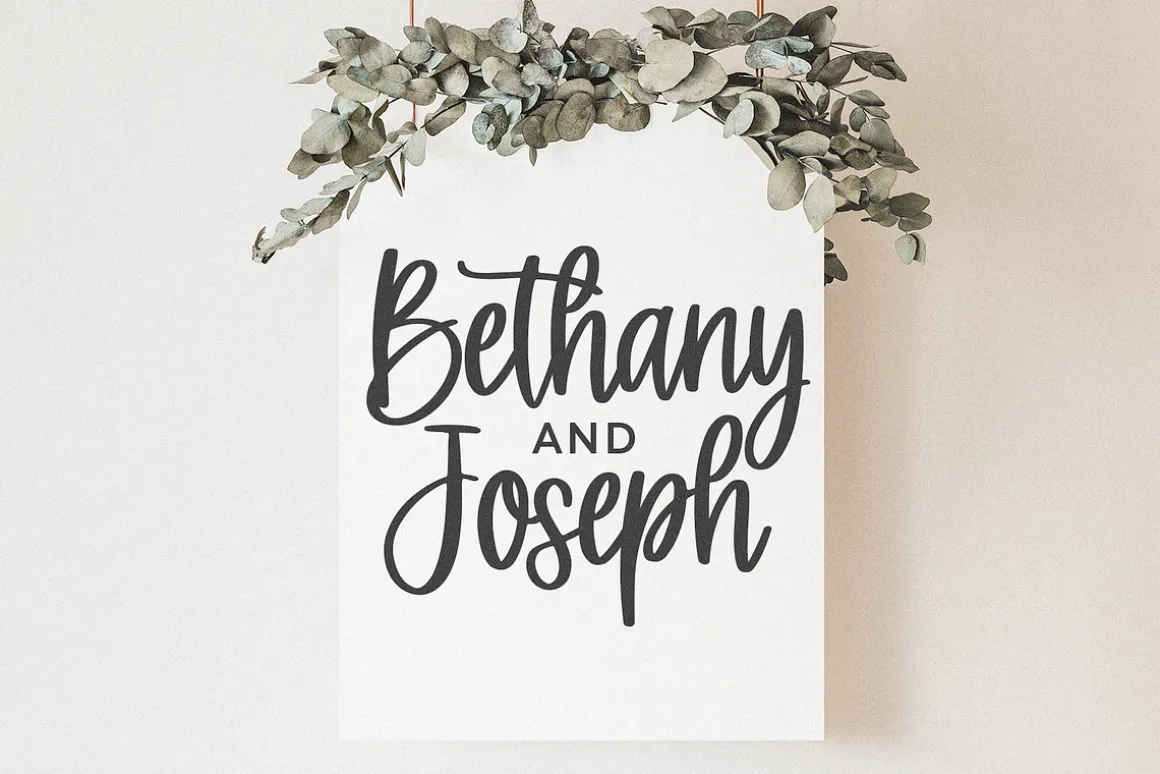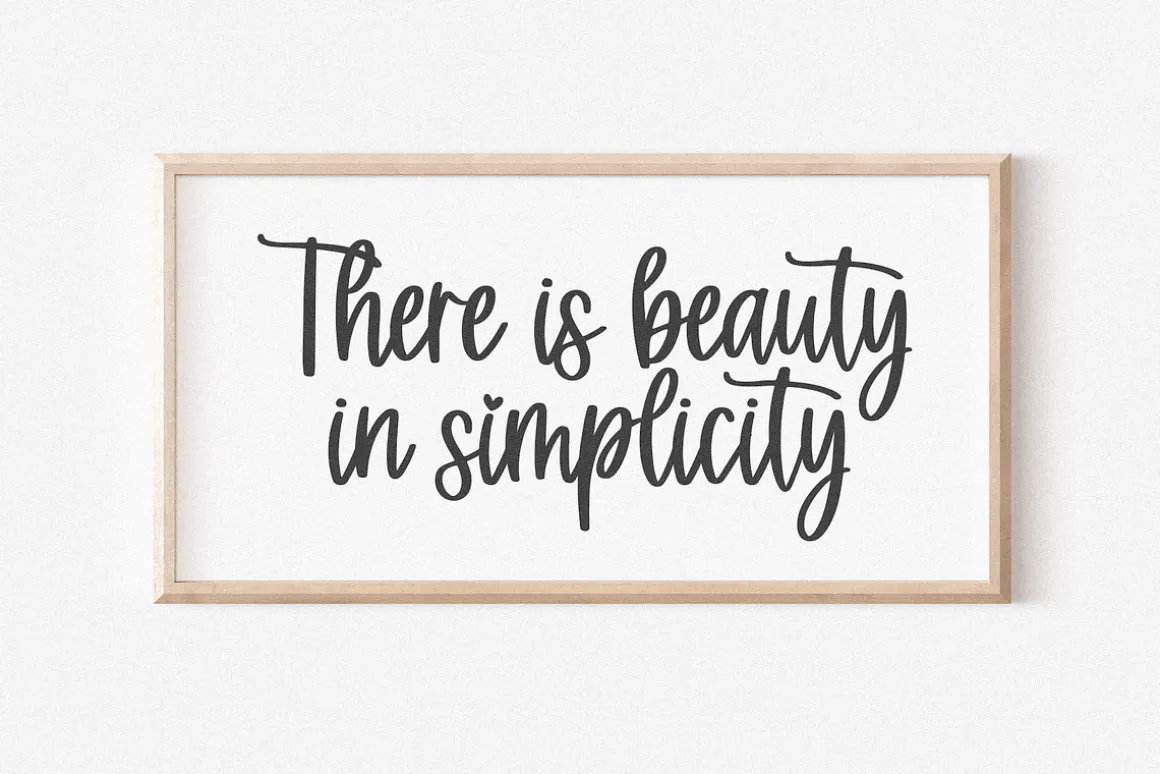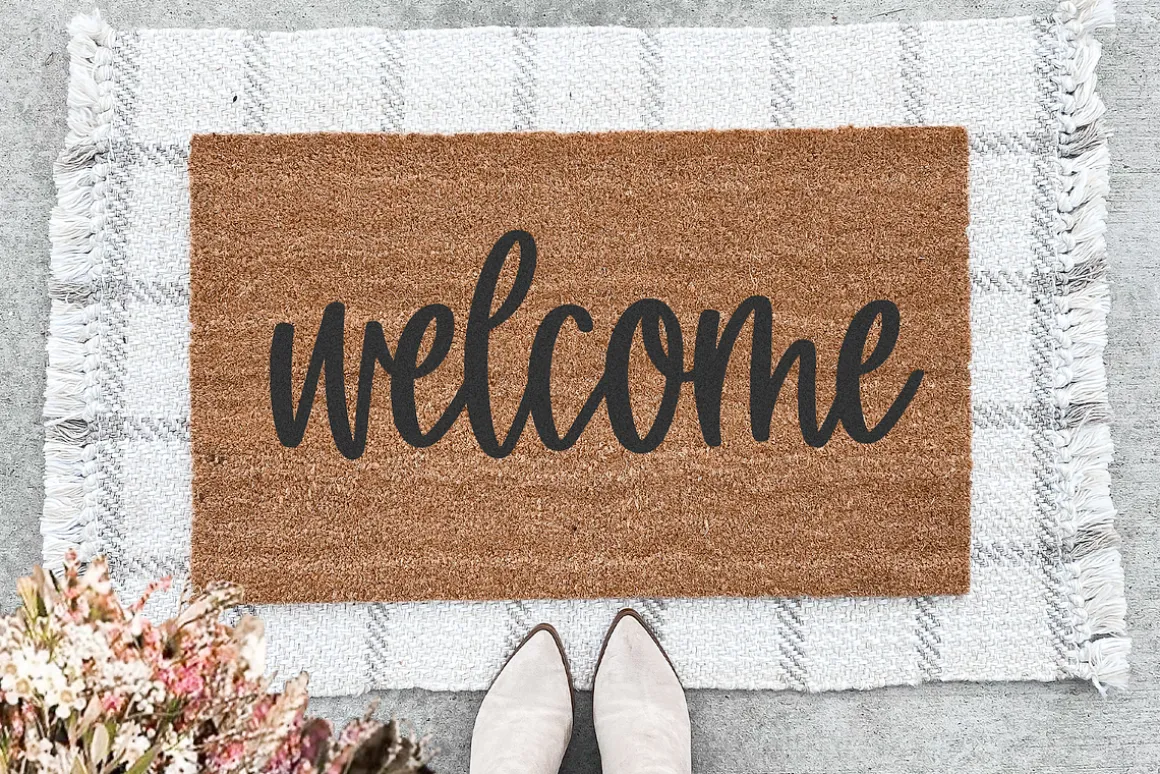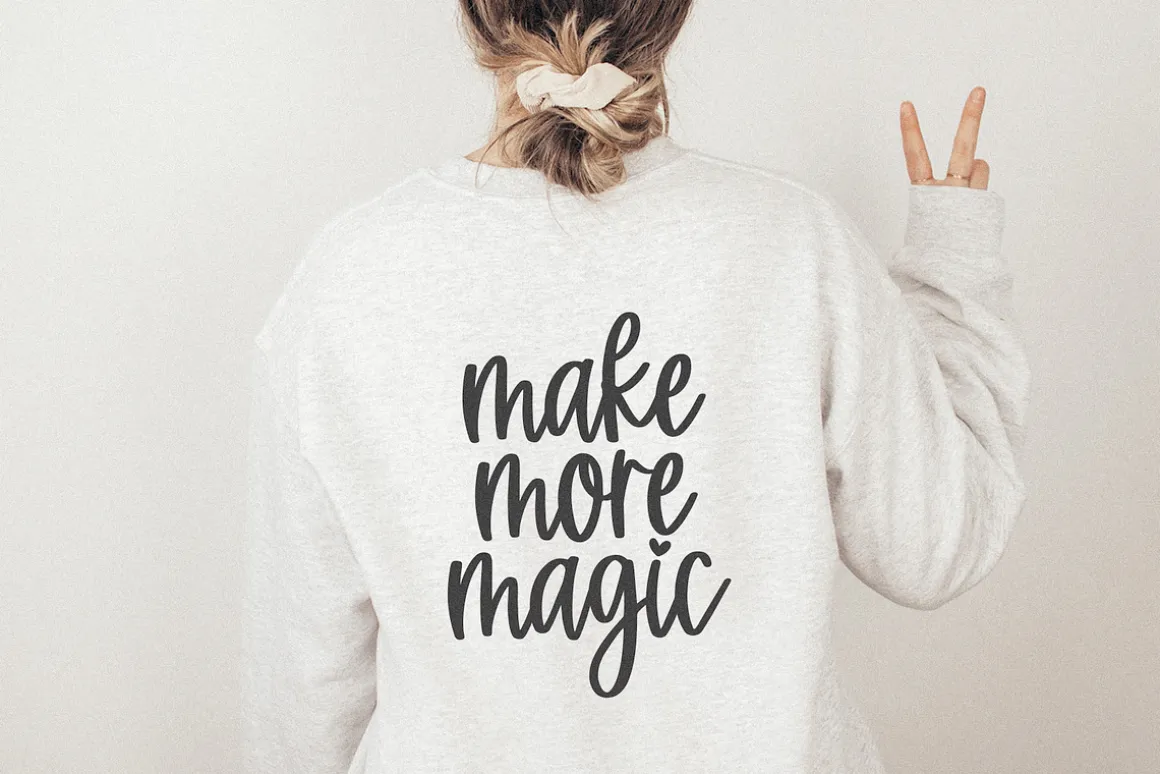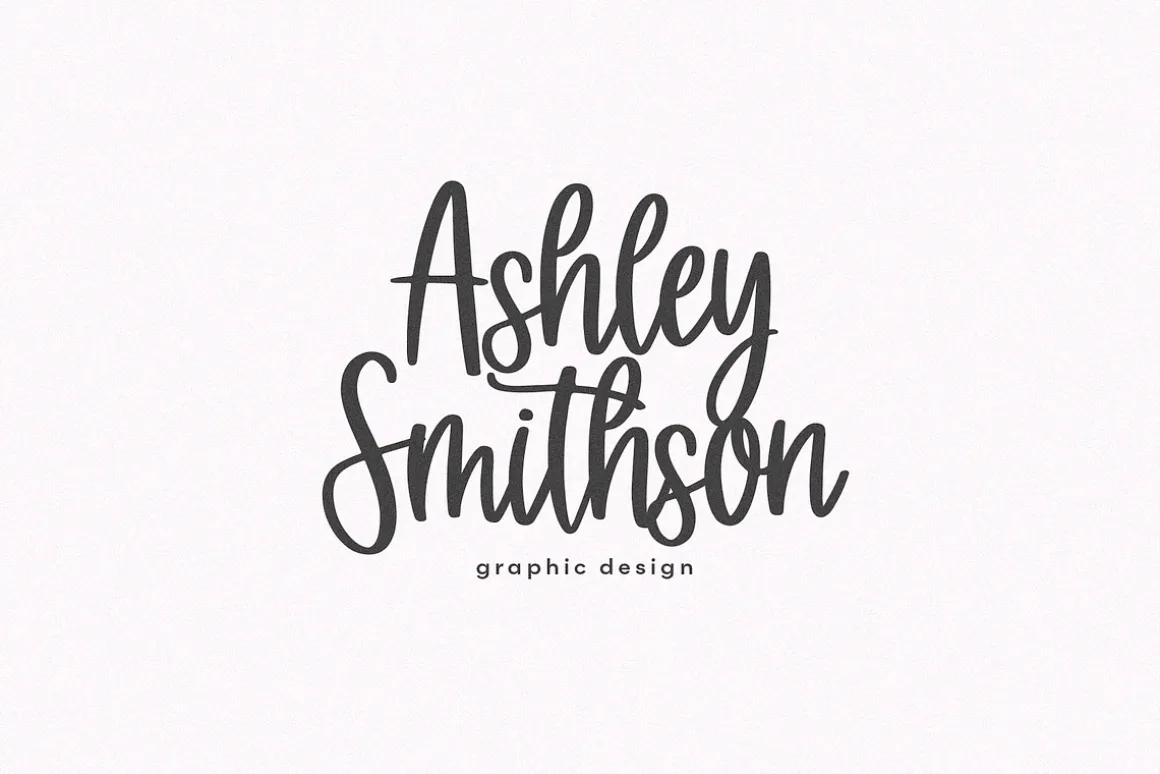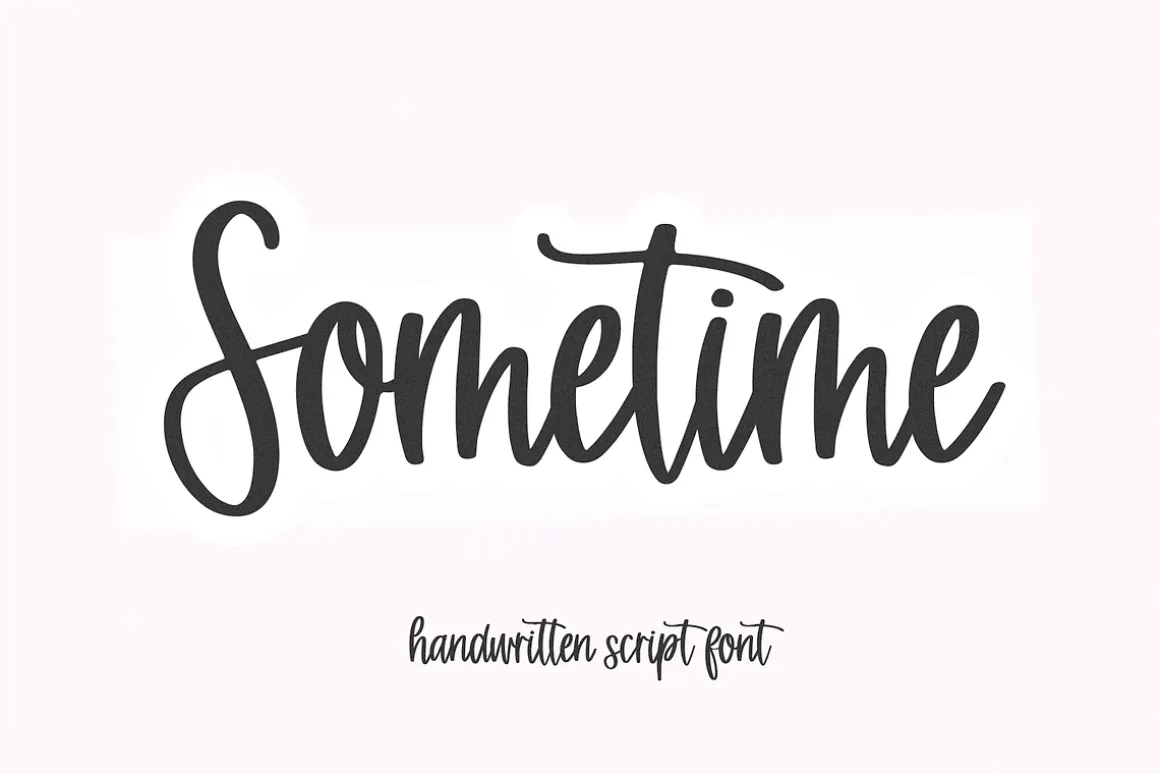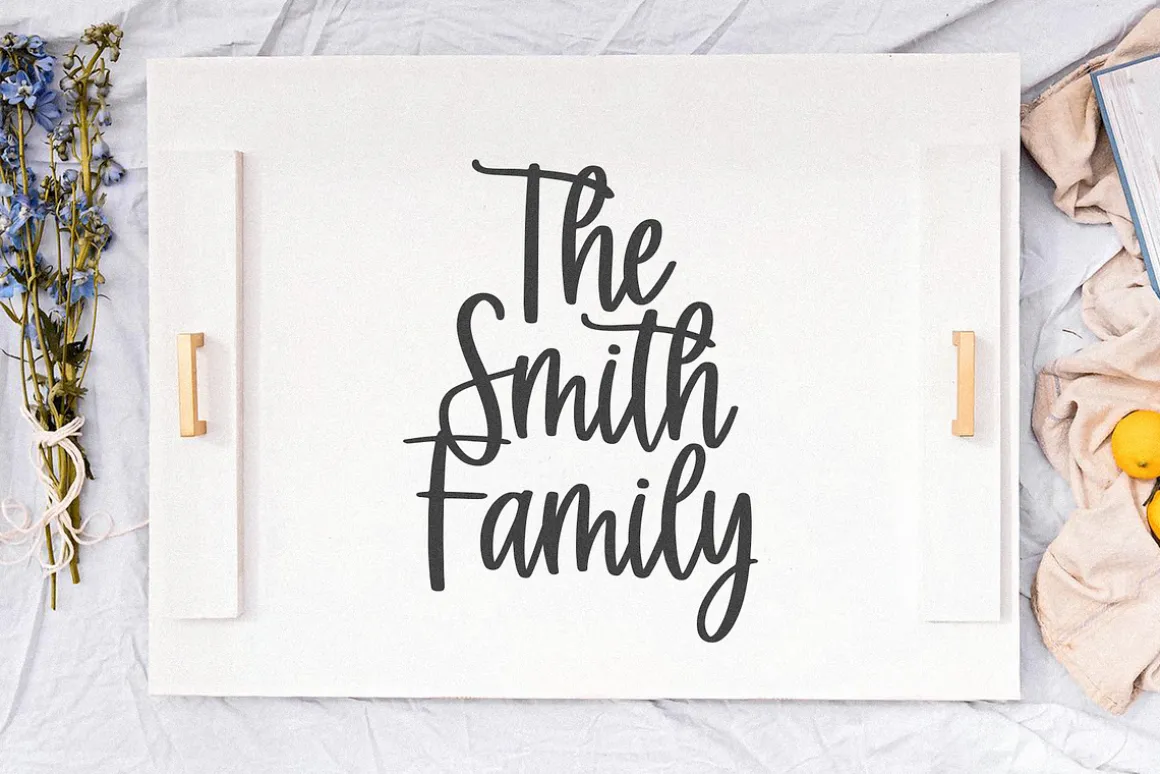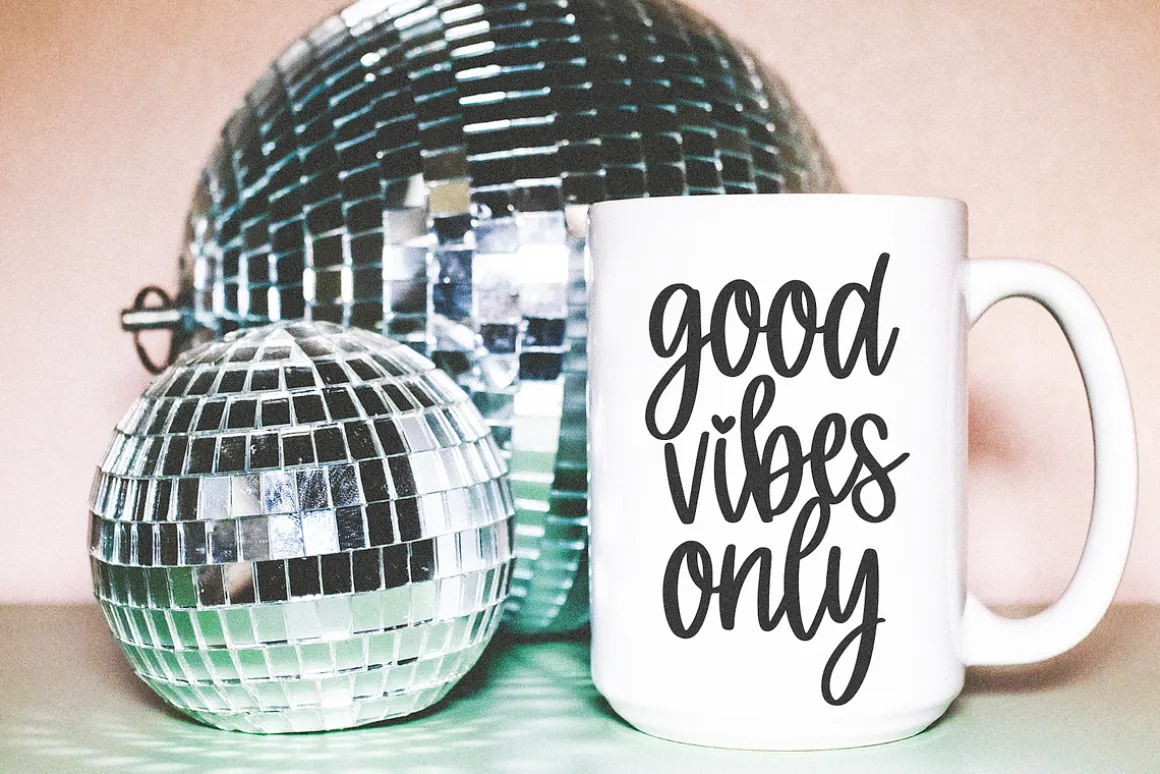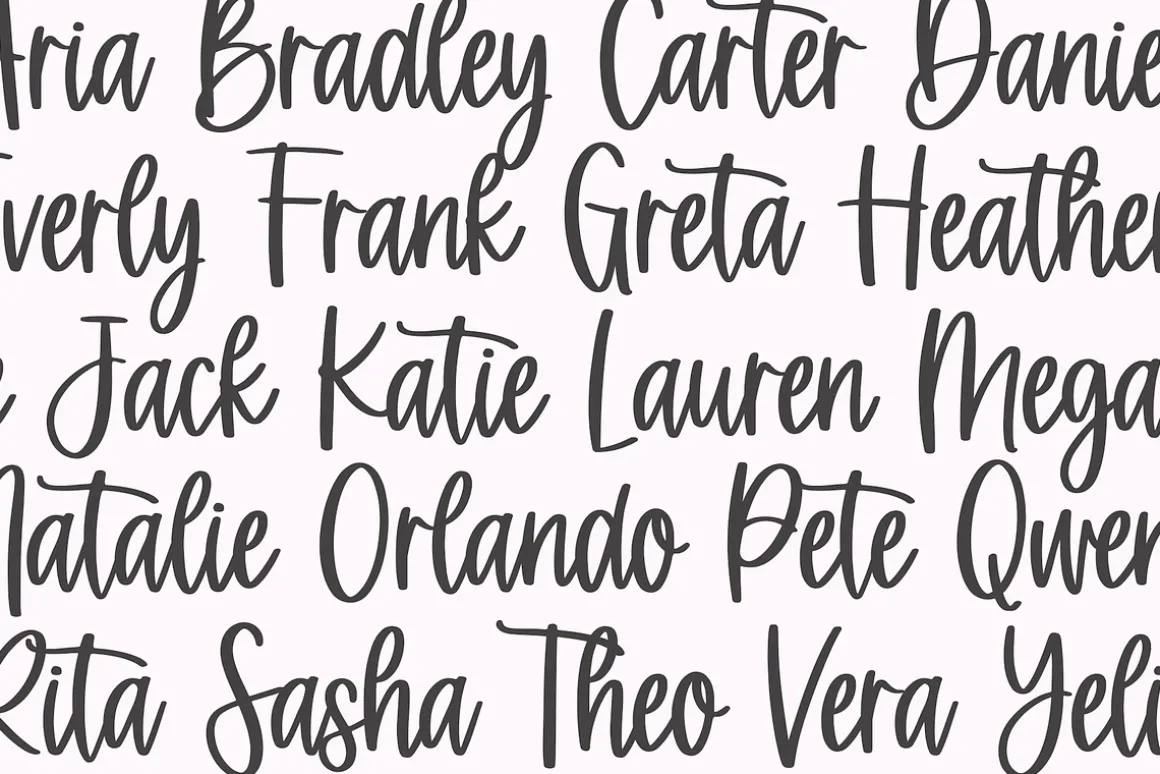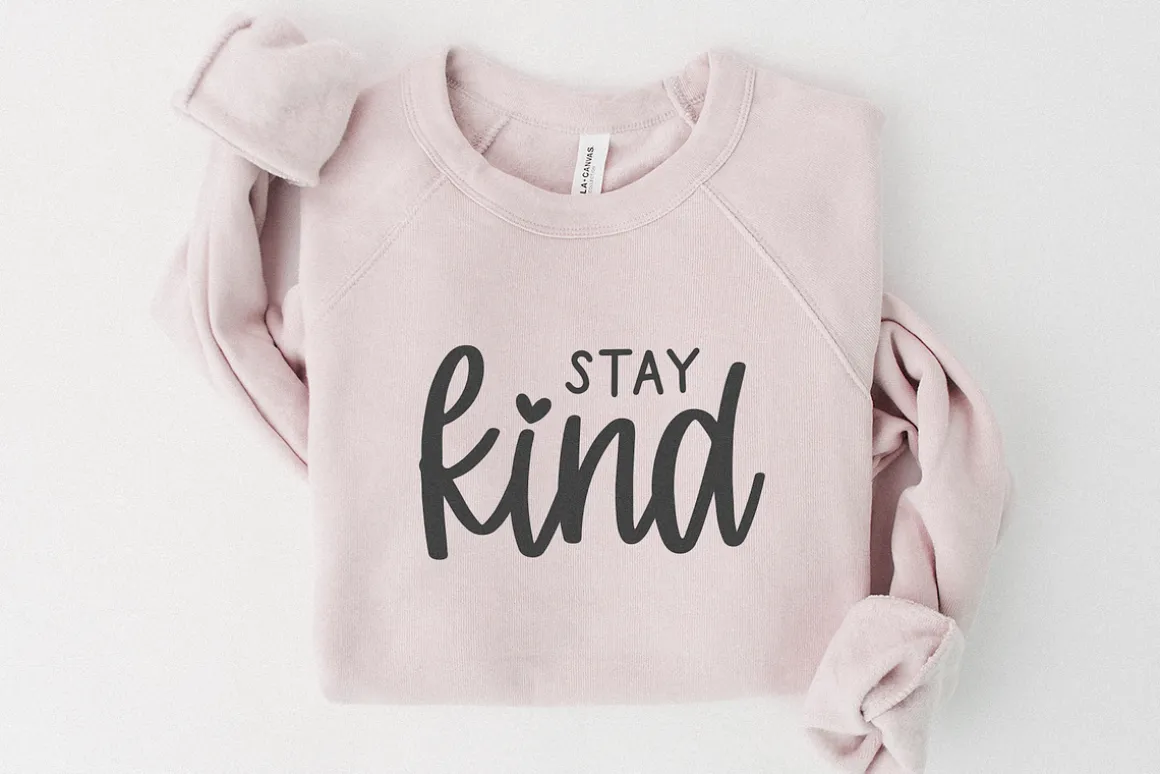
Sometime is a handwritten script font.
This font is perfect for logos, quotes, crafts, stickers, procreate, farmhouse designs, cricut projects and more!
Sometime is a handwritten script font.
This font is perfect for logos, quotes, crafts, stickers, procreate, farmhouse designs, cricut projects and more!